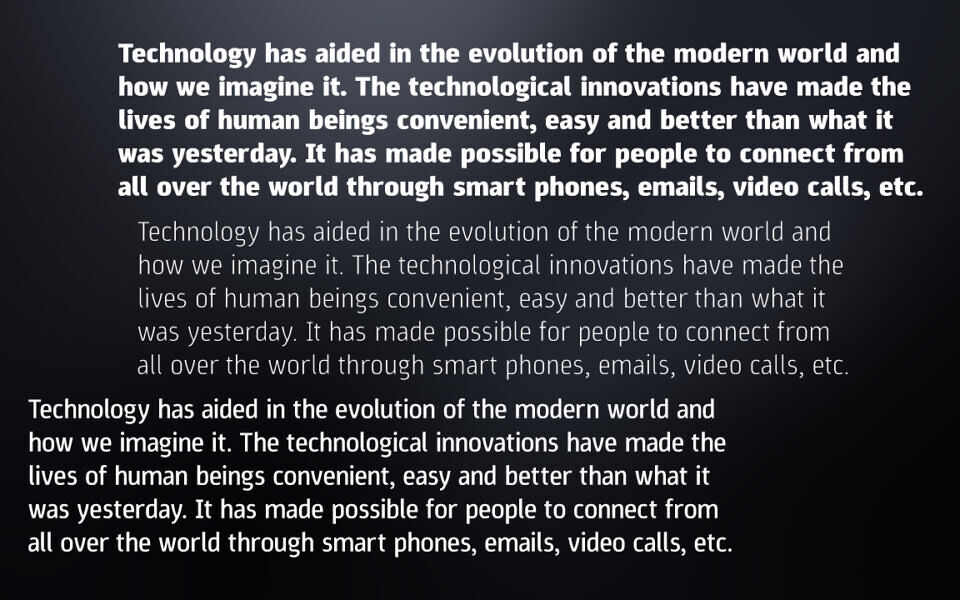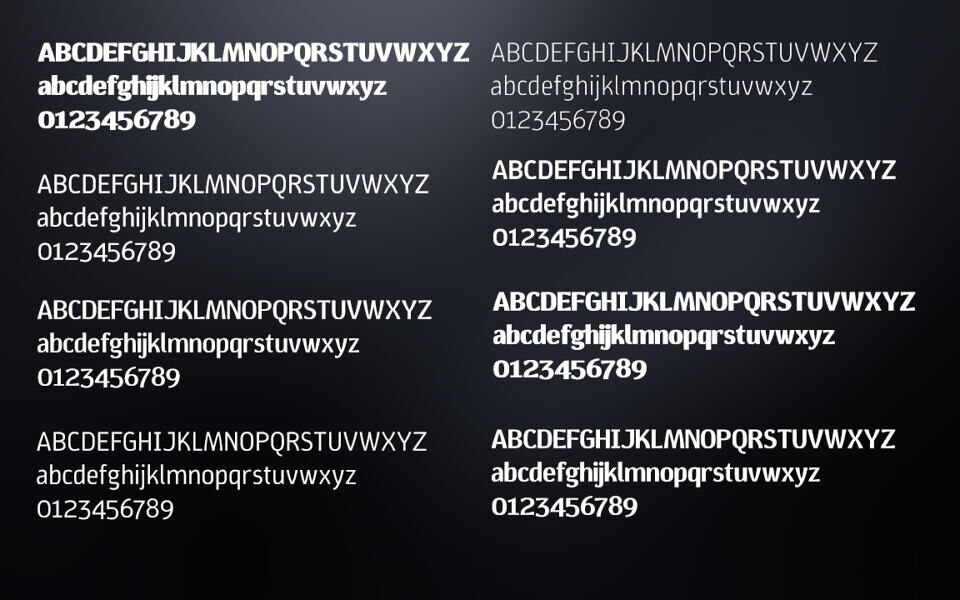
Aniva Sans Font, a creation by Typofactur, evolves from Epunda Sans with a distinctive flair. Its design emphasizes verticality while incorporating organic curves, lending a friendly yet bold character.
Available as a variable font, Aniva Sans spans eight weights from Thin to ExtraBlack, with an optical size axis that transforms it into a display variant, featuring enhanced contrast and teardrop terminals for an elegant, Antiqua-inspired touch.
Ligatures activate from Bold (wdth 700) or Medium (wdth 500) in the display version, adding sophistication. This free font is versatile for various uses, except resale, making it a dynamic choice for designers seeking both charm and functionality.